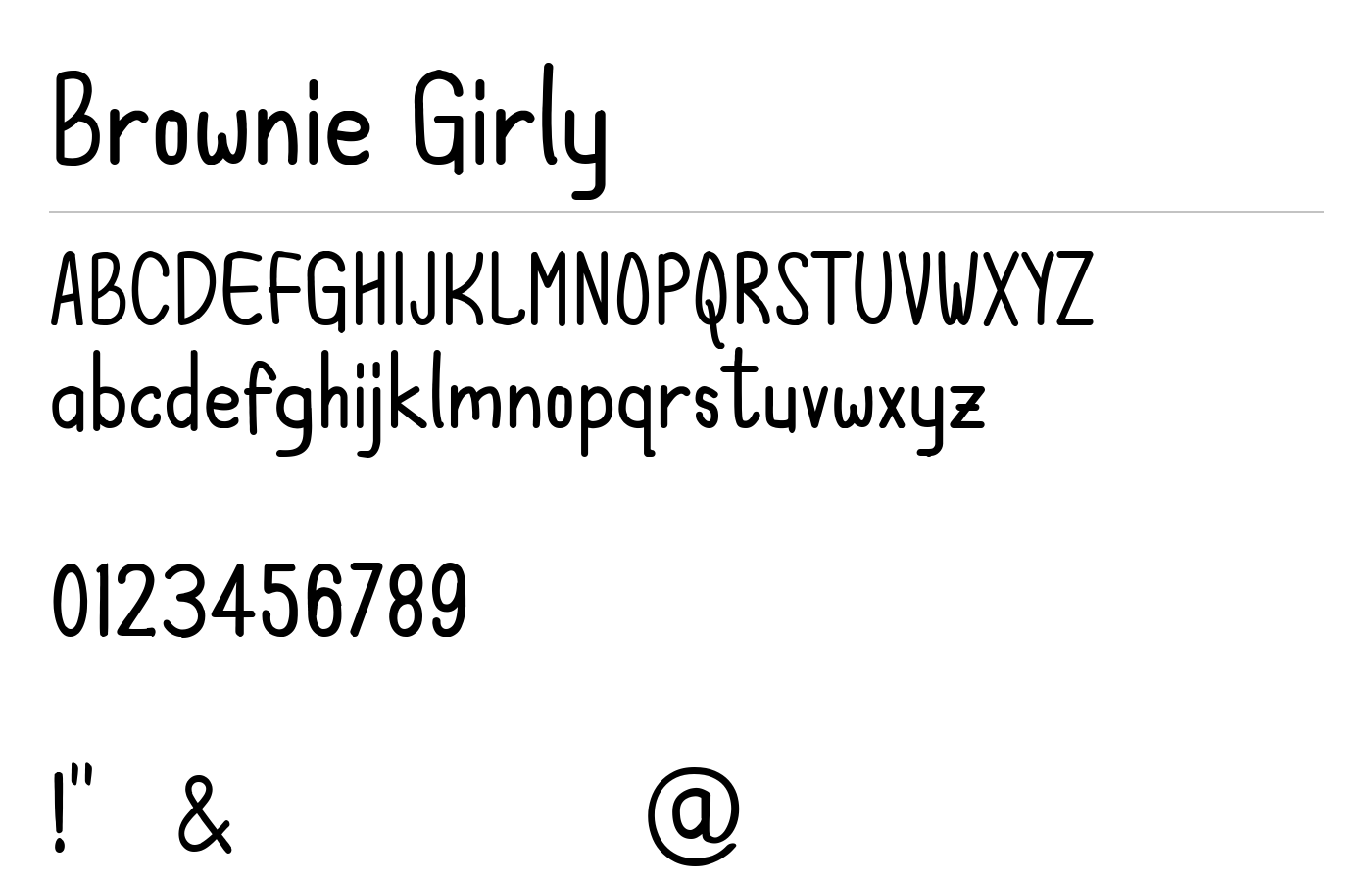
Brownie Girly is a playful and friendly sans serif font with a handwritten feel, characterized by its tall, narrow letters and gentle, rounded strokes. Its slender, consistent weight and casual style make it perfect for informal, youthful designs such as kids' products, greeting cards, or fun branding projects. This font works well in headlines and short text that benefit from a warm, approachable, and slightly quirky personality.
Brownie Girly Font
About Brownie Girly Font